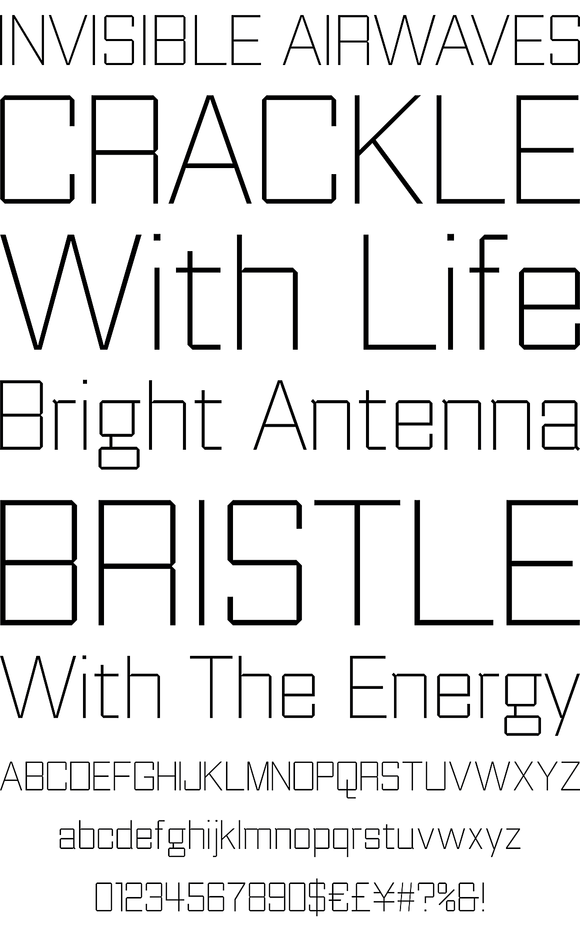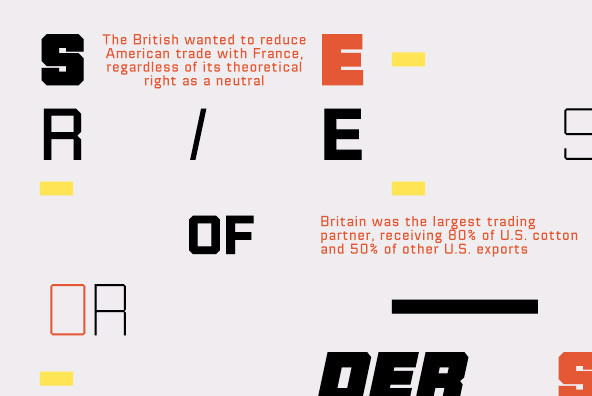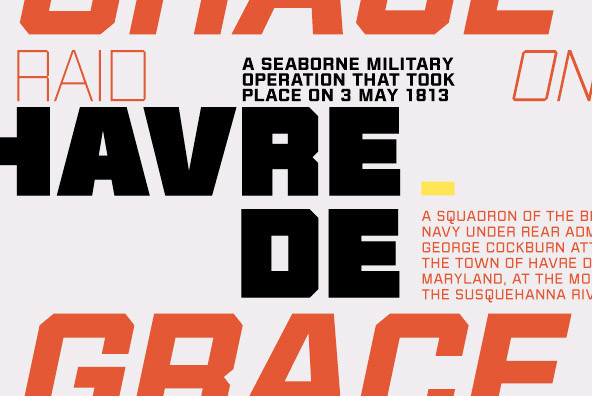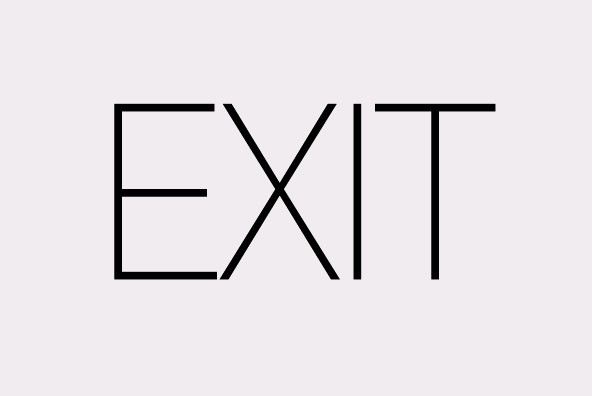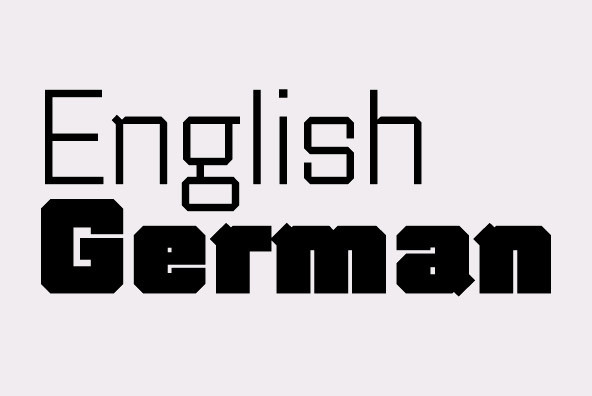
Thud is a family of seven weights with roman and true italics. Weights are done with parabolic formula by Luc(as) de Groot for each weight to be optically in between the next weight. Made for headlines, but kerned well enough for larger amounts of text.